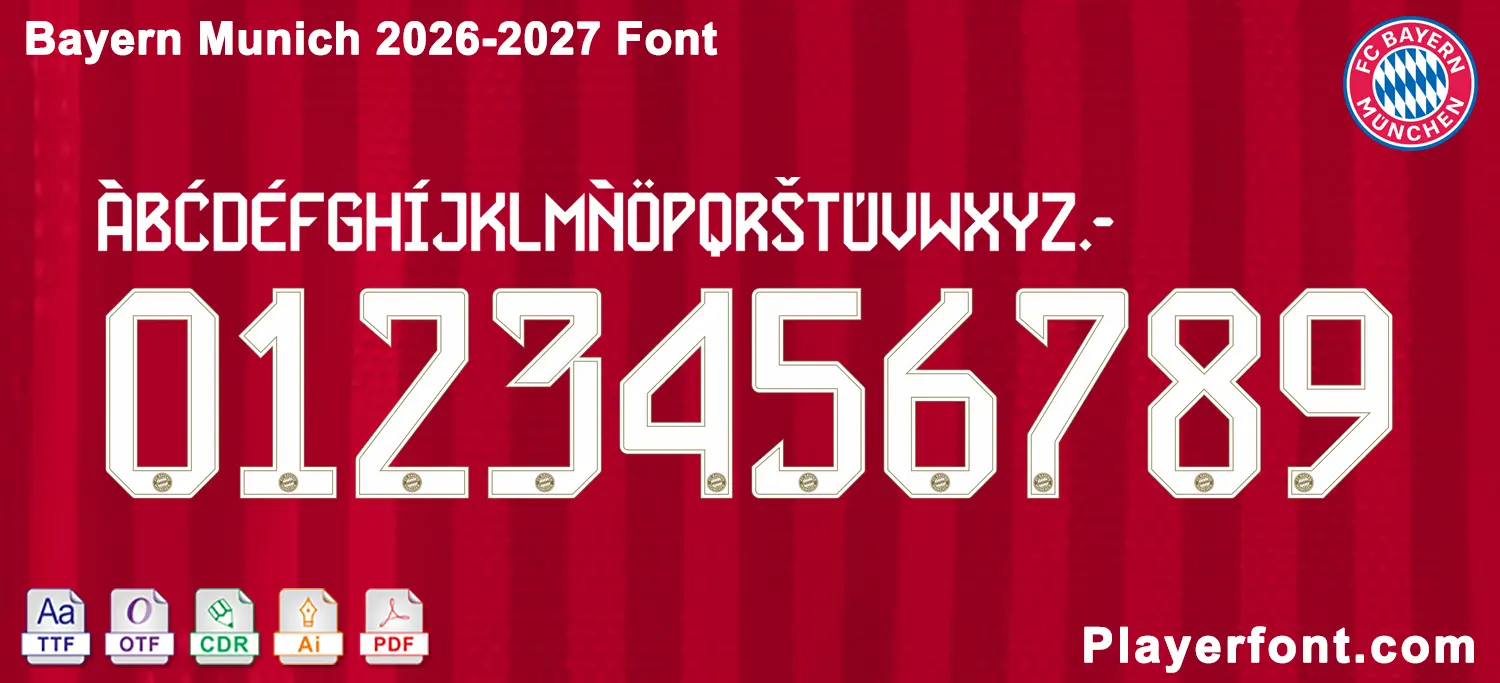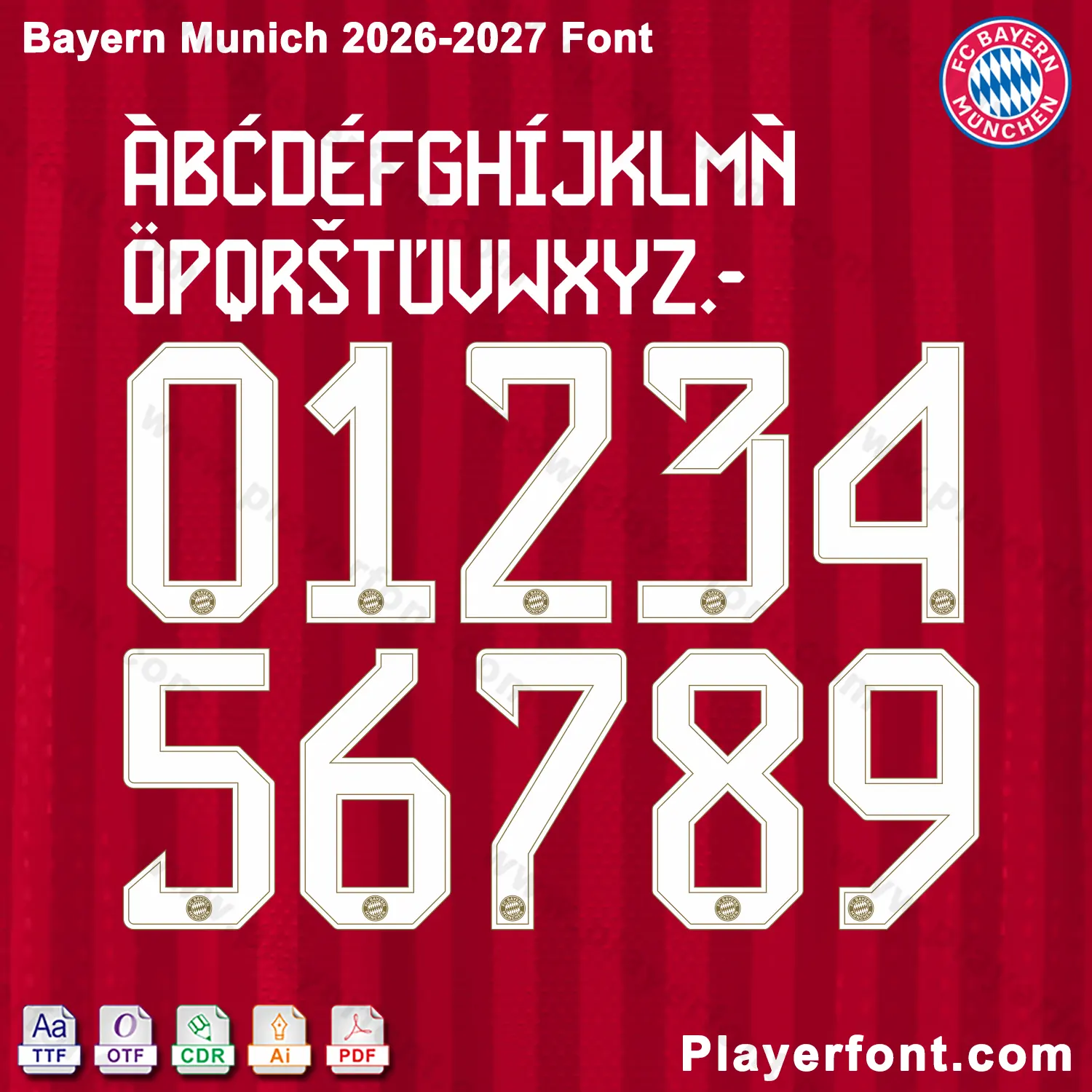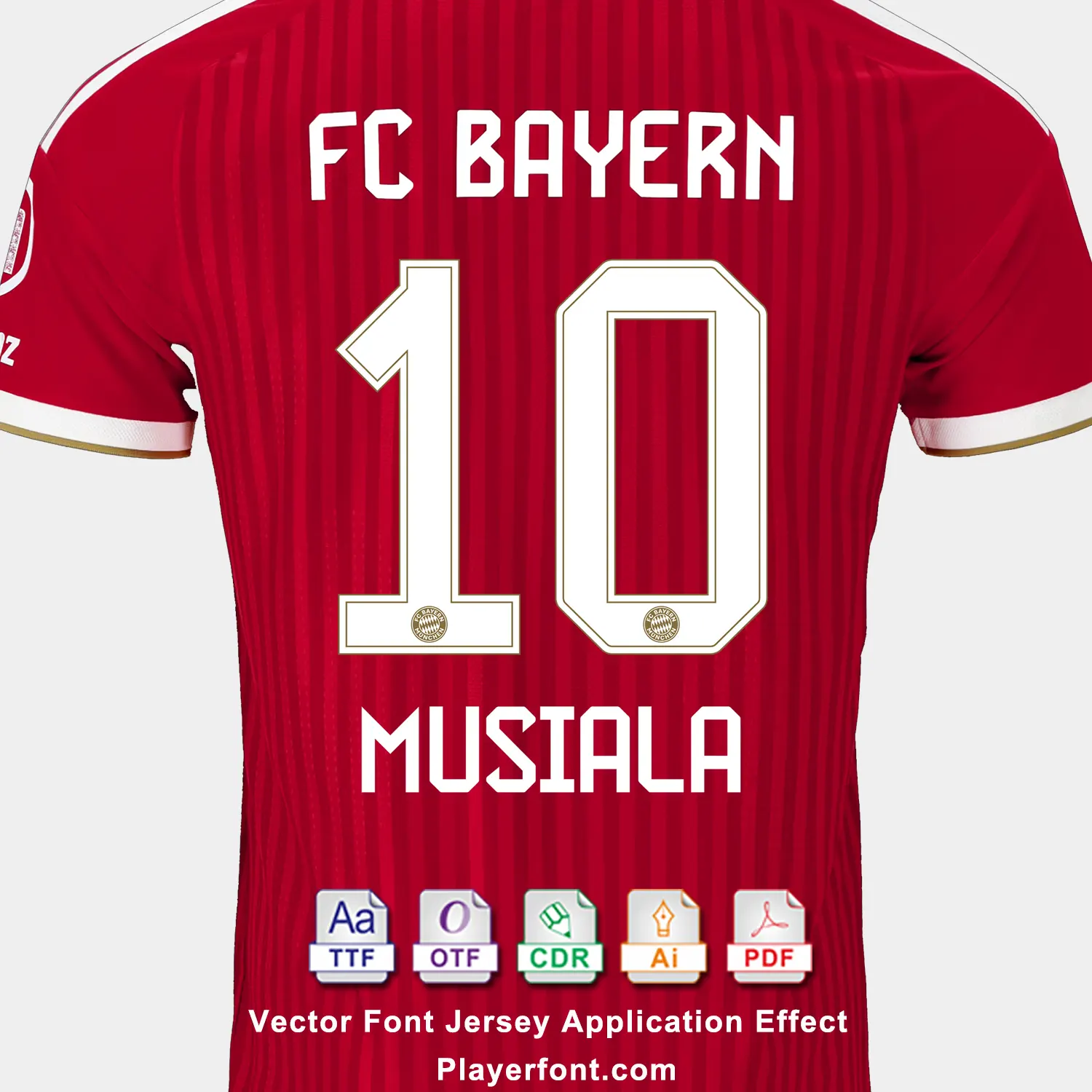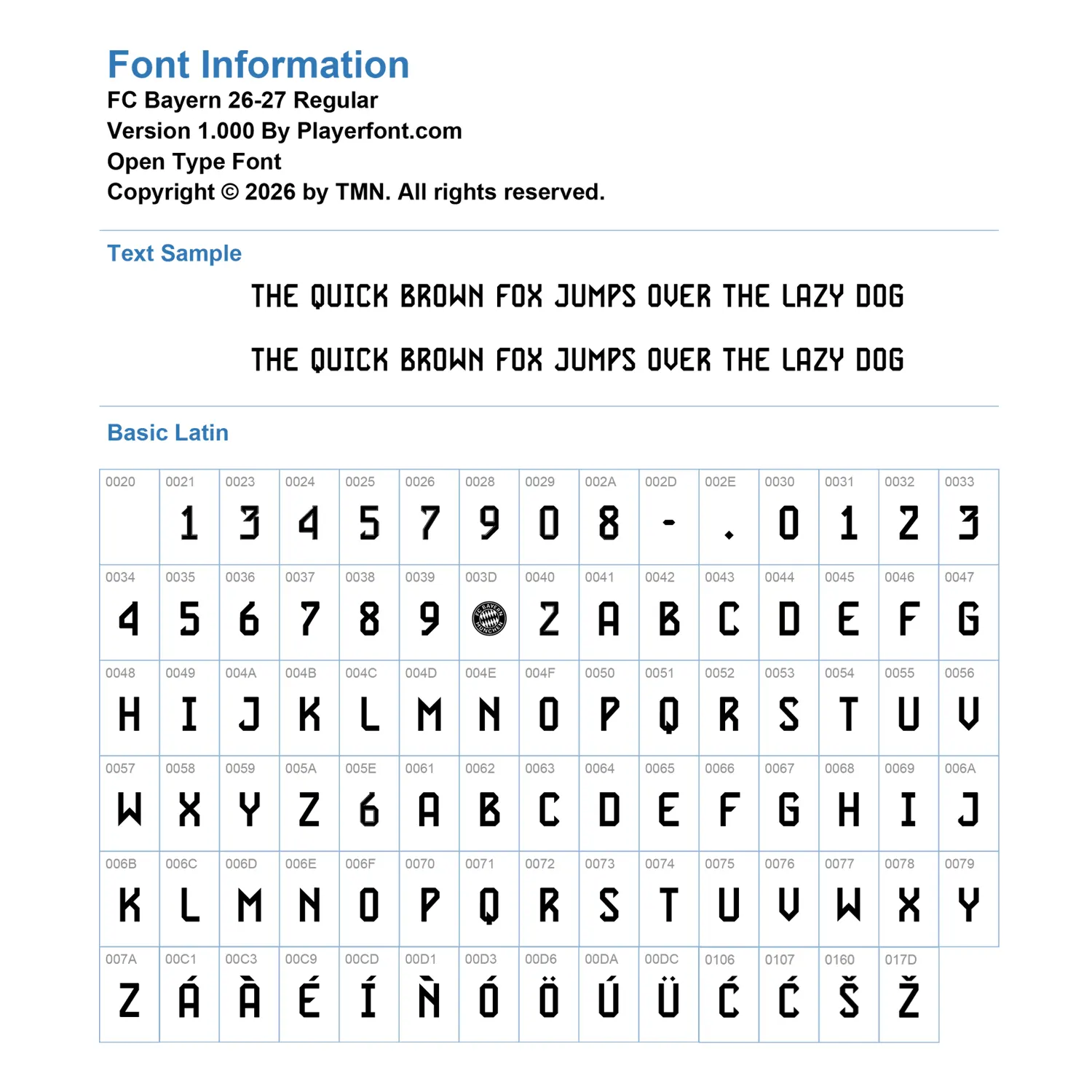
Elevate your football jersey designs and custom kits with the official Bayern Munich 2026-2027 font. Created for designers, sports enthusiasts, and apparel creators, this font pack replicates the exact typography used by the Bavarian giants for the 26/27 season.
The typeface features sharp, modern geometric styling with the official FC Bayern München club crest beautifully integrated into the bottom of the jersey numbers. Whether you are using it for digital graphics, print, or apparel production, this pack guarantees professional-grade quality.
Complete Character Set: Includes uppercase letters, numbers (0–9), and special characters/accents as used on official player kits.
Authentic Design: Exact digital replica of the 26-27 season kit font.